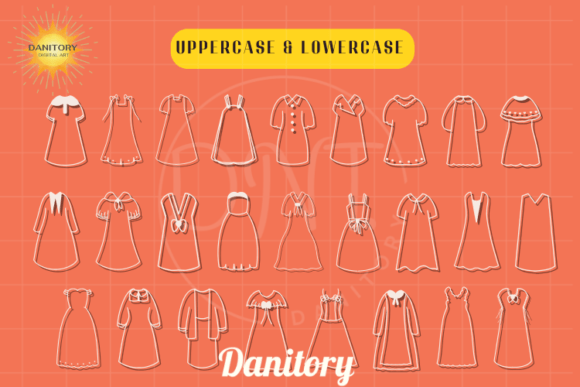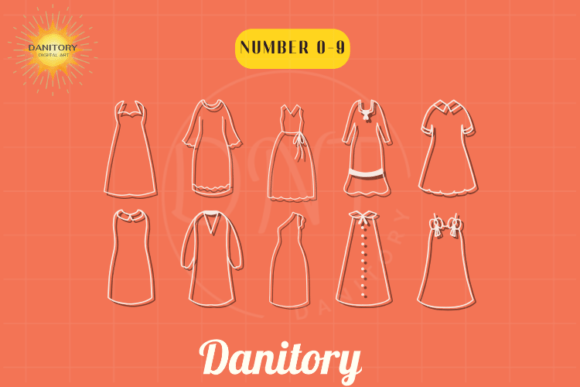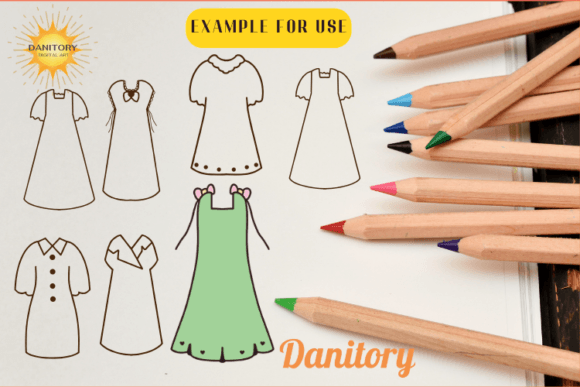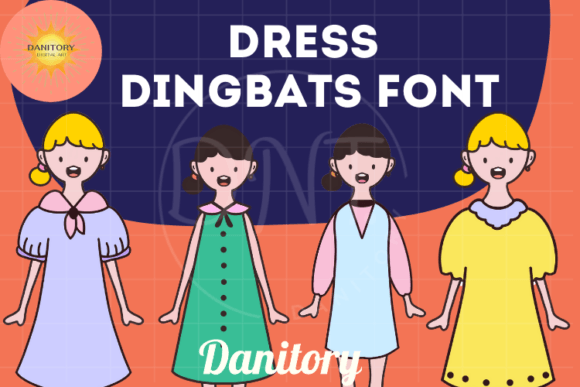
Dress Font: Elevate Your Designs with Fashionable Dingbats
Are you a fashion enthusiast, designer, or crafter looking for a unique and stylish way to add a touch of elegance to your projects? Look no further than the Dress Font, a dingbats font that features a stunning collection of dresses in various styles. From elegant gowns to casual dresses, this font is perfect for anyone who wants to infuse their work with a dash of fashion flair.
What is Dress Font?
Dress Font is a specially designed dingbats font that showcases a wide range of dresses, each uniquely crafted to cater to different tastes and preferences. Whether you’re working on a fashion-related project, creating social media graphics, or designing invitations, this font is sure to impress. The Dress Font is not just a font, but a collection of beautiful, high-quality illustrations that can be used to add a touch of sophistication and glamour to your work.
Key Features of Dress Font
- Variety of Dresses: The Dress Font features a diverse collection of dresses, including elegant gowns, casual sundresses, cocktail dresses, and more. Each dress is carefully designed to be distinct and visually appealing.
- Unique Designs: Every dress in the font is uniquely designed, ensuring that your projects stand out from the crowd. The designs are intricate, detailed, and crafted with precision.
- Elegant and Casual Options: Whether you’re looking for something elegant and sophisticated or casual and playful, the Dress Font has got you covered. The font includes a range of styles to suit different themes and occasions.
- Scalable: The Dress Font is highly scalable, allowing you to use it for a variety of projects, from small icons to large banners, without compromising on quality.
Who Can Benefit from Dress Font?
The Dress Font is perfect for a wide range of users, including:
- Fashion Designers: Add a touch of elegance to your fashion designs, portfolios, and marketing materials.
- Graphic Designers: Use the Dress Font to create stunning social media graphics, blog posts, and website elements.
- Crafters: Add a personal touch to your DIY projects, such as crafting tutorials, party invitations, and gift tags.
- Event Planners: Use the Dress Font to create beautiful event invitations, decor inspiration boards, and promotional materials.
How to Use Dress Font in Your Projects
Using the Dress Font in your projects is easy and straightforward. Here are a few tips to get you started:
- Pair with Other Fonts: Combine the Dress Font with other fonts to create visually appealing text combinations.
- Use as Accents: Use the dresses as accents to add a touch of fashion flair to your designs.
- Create Icons: Use the dresses as icons to create custom graphics, such as social media icons or blog post illustrations.
- Experiment with Colors: Experiment with different colors and textures to give your designs a unique and personalized touch.
The Dress Font is a must-have for anyone who loves fashion and wants to add a touch of elegance to their designs. With its unique and stylish collection of dresses, this dingbats font is perfect for designers, crafters, and fashion enthusiasts alike. Whether you’re working on a fashion-related project or just want to add a touch of glamour to your work, the Dress Font is sure to impress.